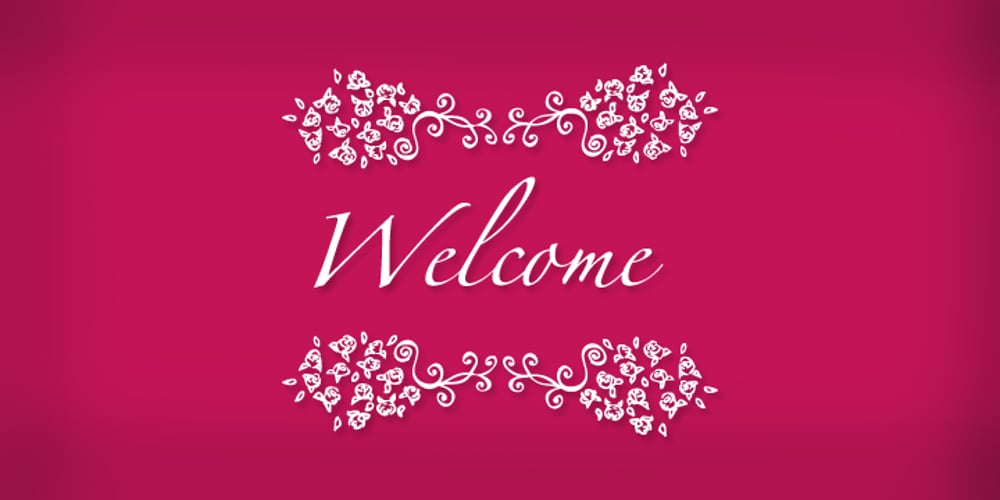
Rosedal Font Family was designed by Susana Mabel Maurette and published by Del Alma. Rosedal contains 1 styles and family package options. Rosedal is the right choice for those who love decorating their works. Lots of frames are ready to embellish your cards, webpages, invitations, book covers, and more.